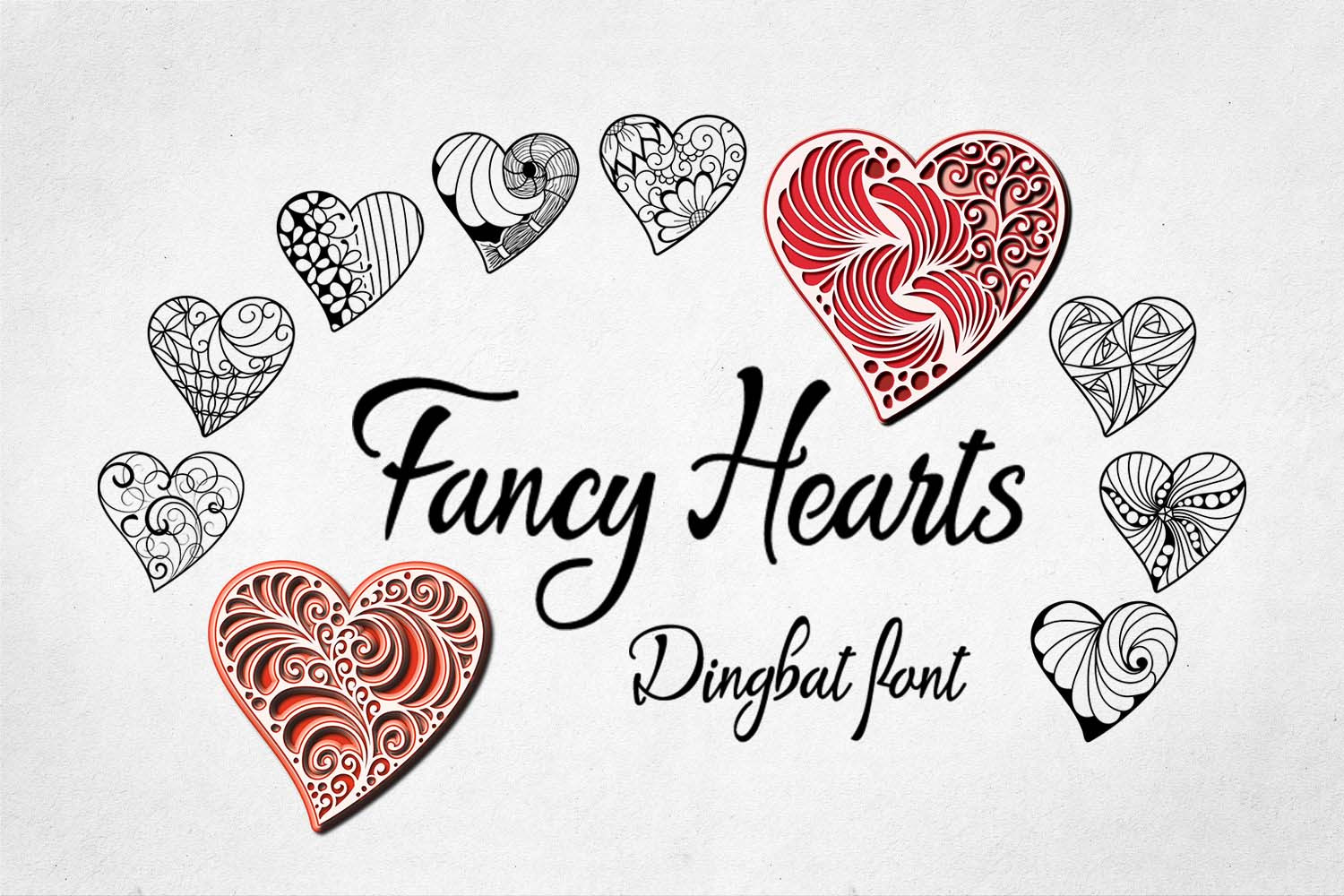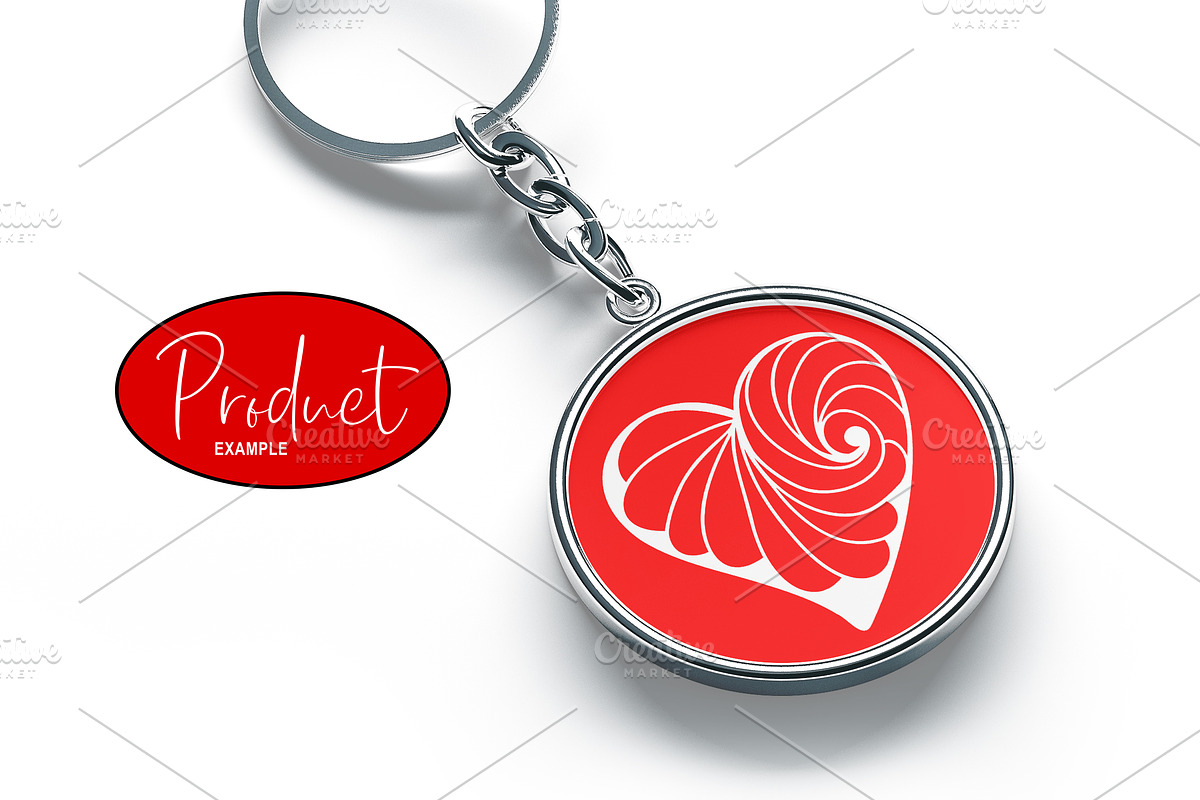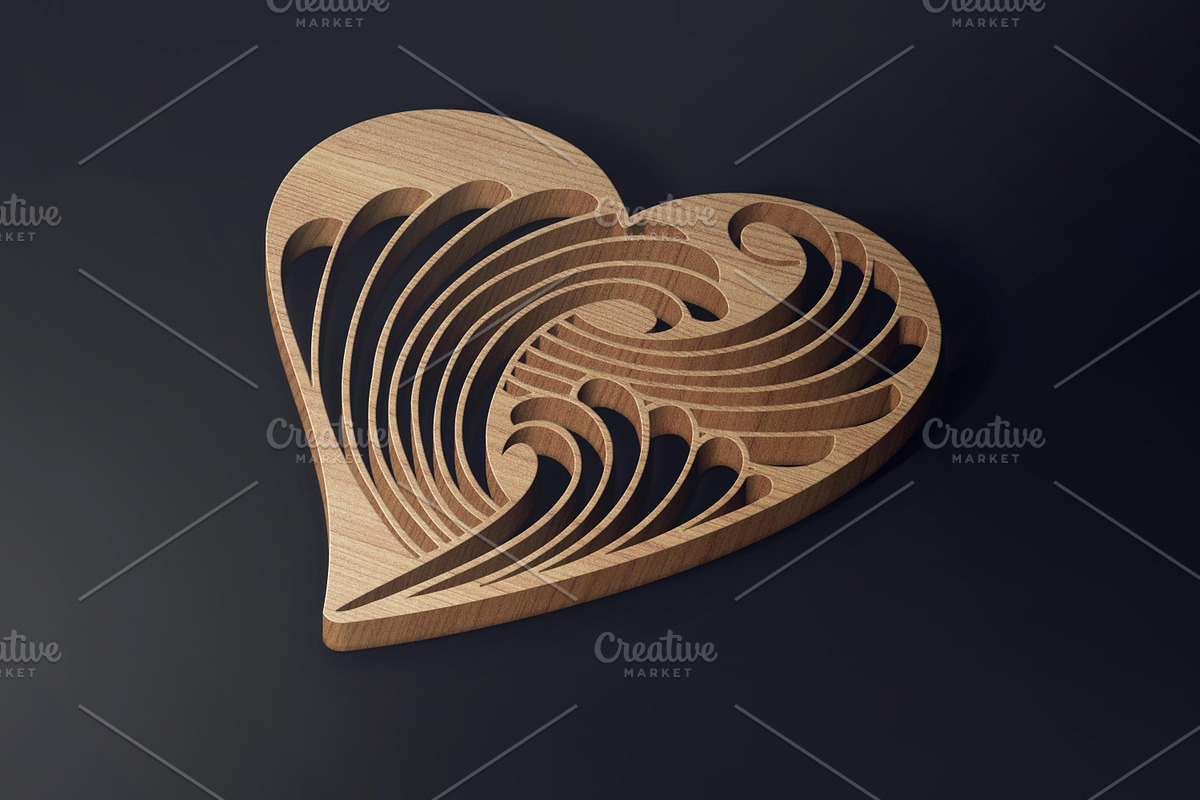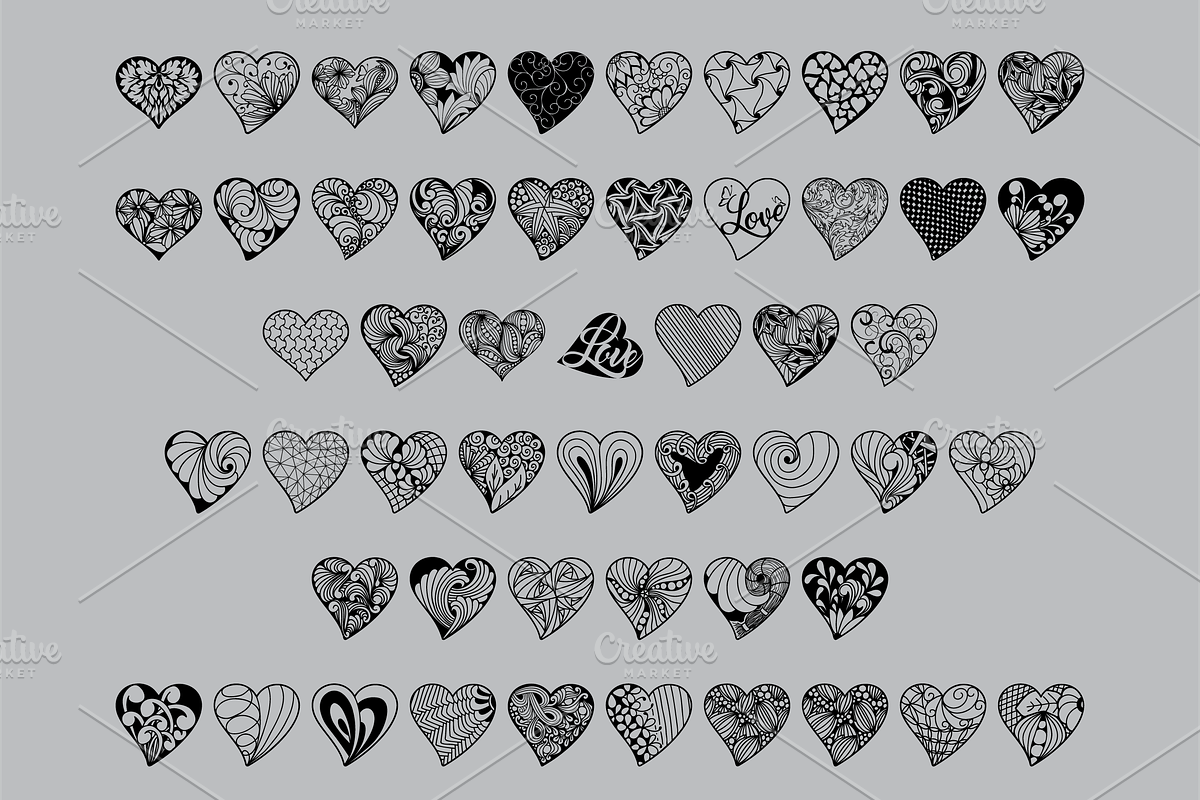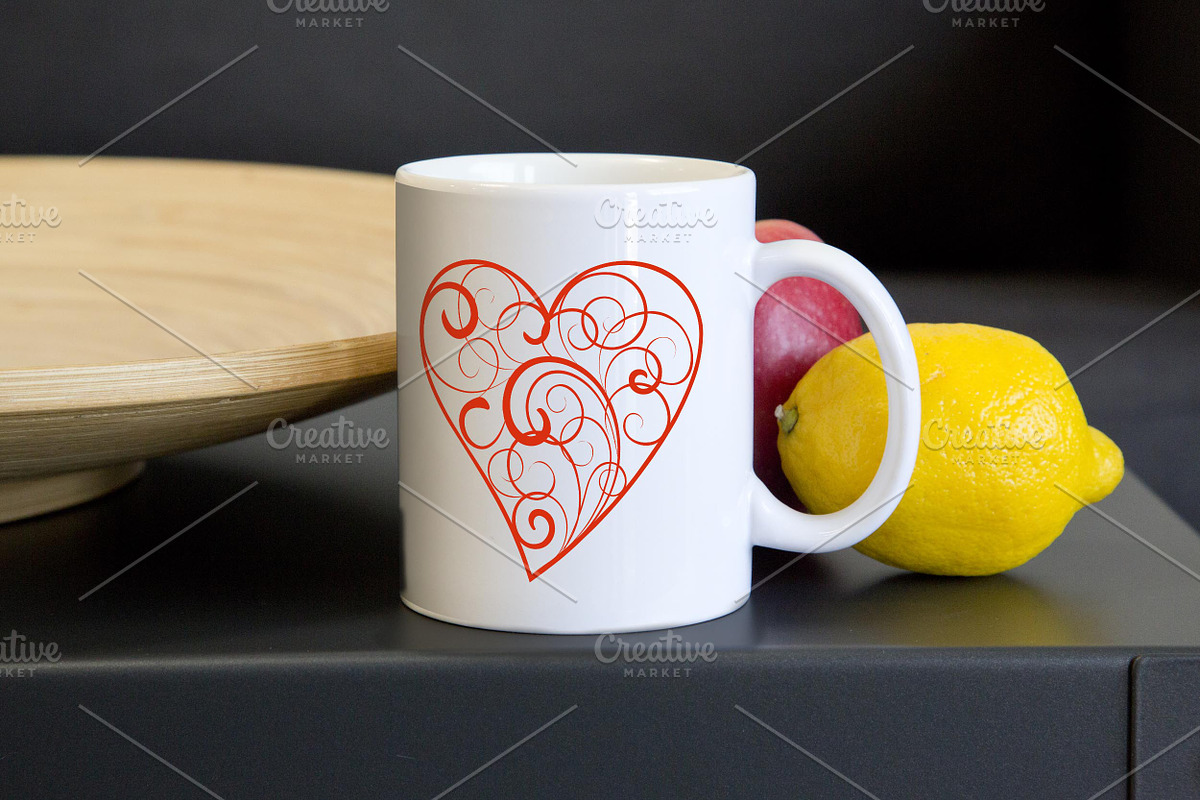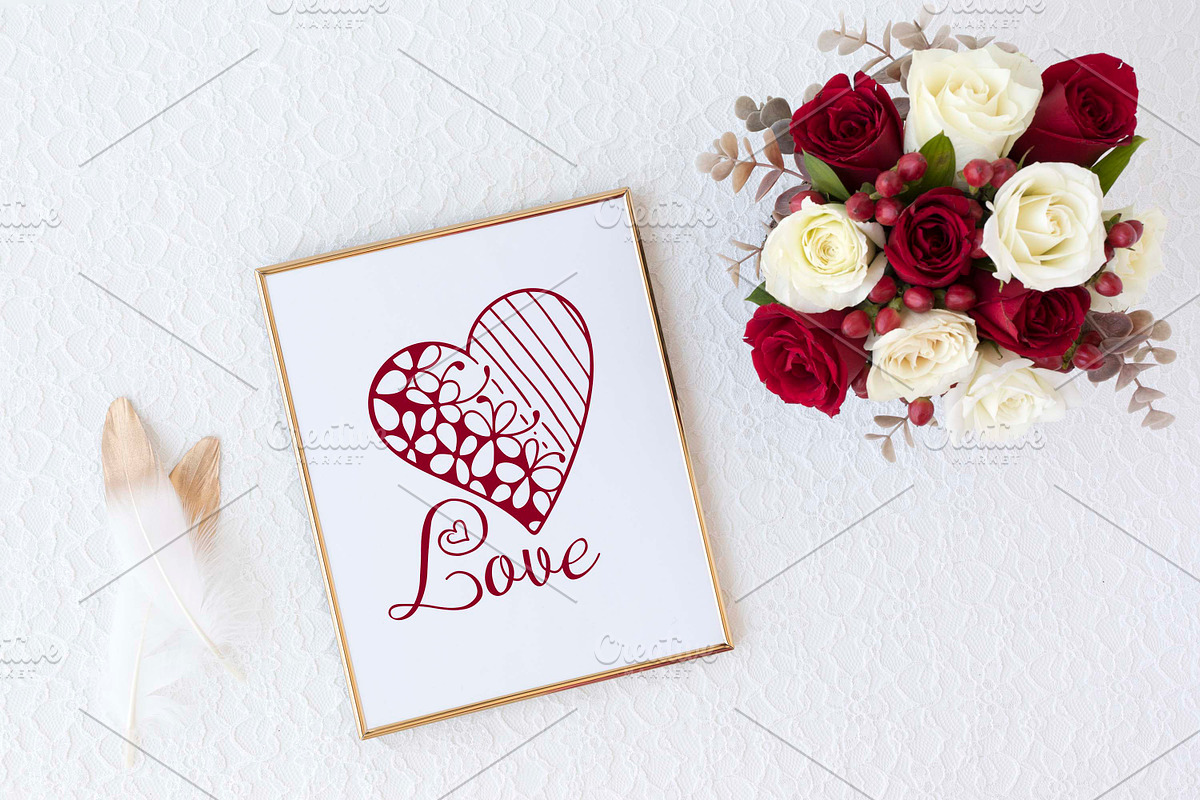
Fancy Hearts Dingbat Font
Fancy Hearts is a fun and loveable dingbat font containing 52 delicate hand-drawn hearts. Characters are as it is shown in the example, just type A-Z, a-z letters or numbers on keyboard. Add them to your creative ideas and make your designs outstanding!